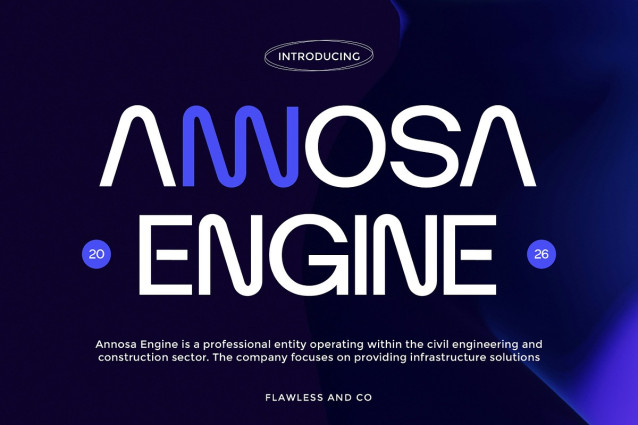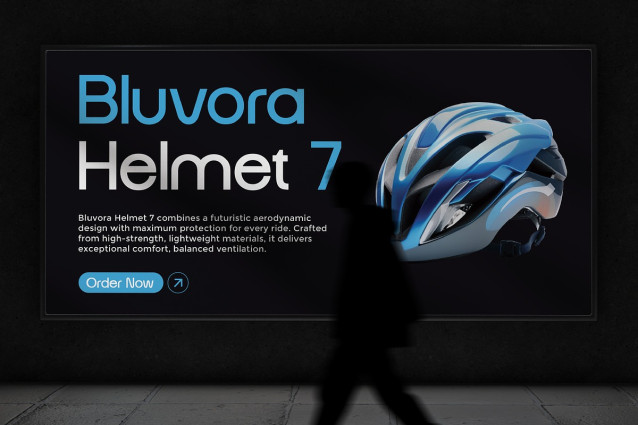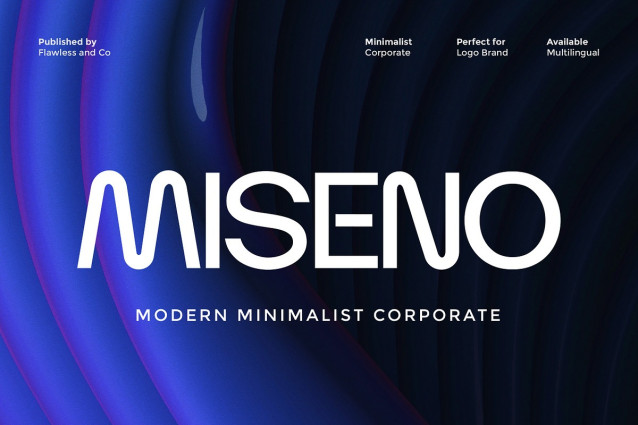
Miseno Font
Miseno Font is a minimalist and modern corporate sans serif font crafted to deliver a clean, professional, and contemporary typographic style. With its simple yet refined letterforms, smooth curves, and balanced structure, Miseno brings clarity and elegance to modern business and branding designs. Whether used for corporate branding, digital interfaces, or marketing materials, Miseno provides a strong and reliable typographic foundation that fits seamlessly across various design applications.